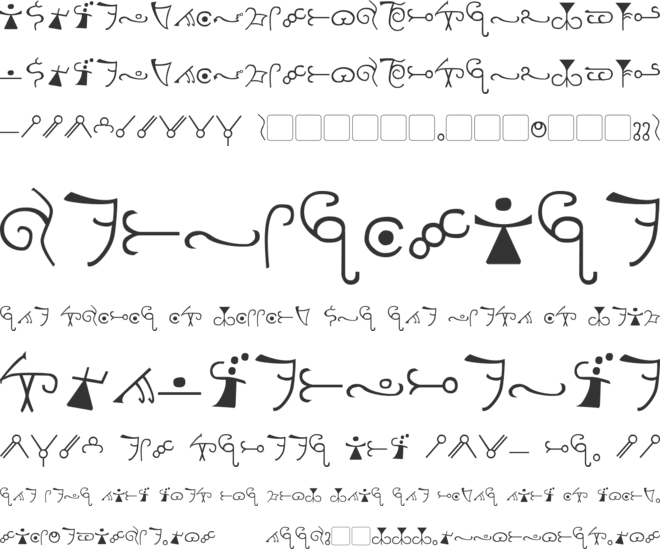
Olde Espruar Font
Old Espruar is based on the fantasy elven script found in TSR's Forgotten Realms (Second Edition). It is a very artistic, pictographic set of runes, combining a variety of disparate styles. Includes all official glyphs.
Note, this script is now de-canonized and replaced with Espruar.